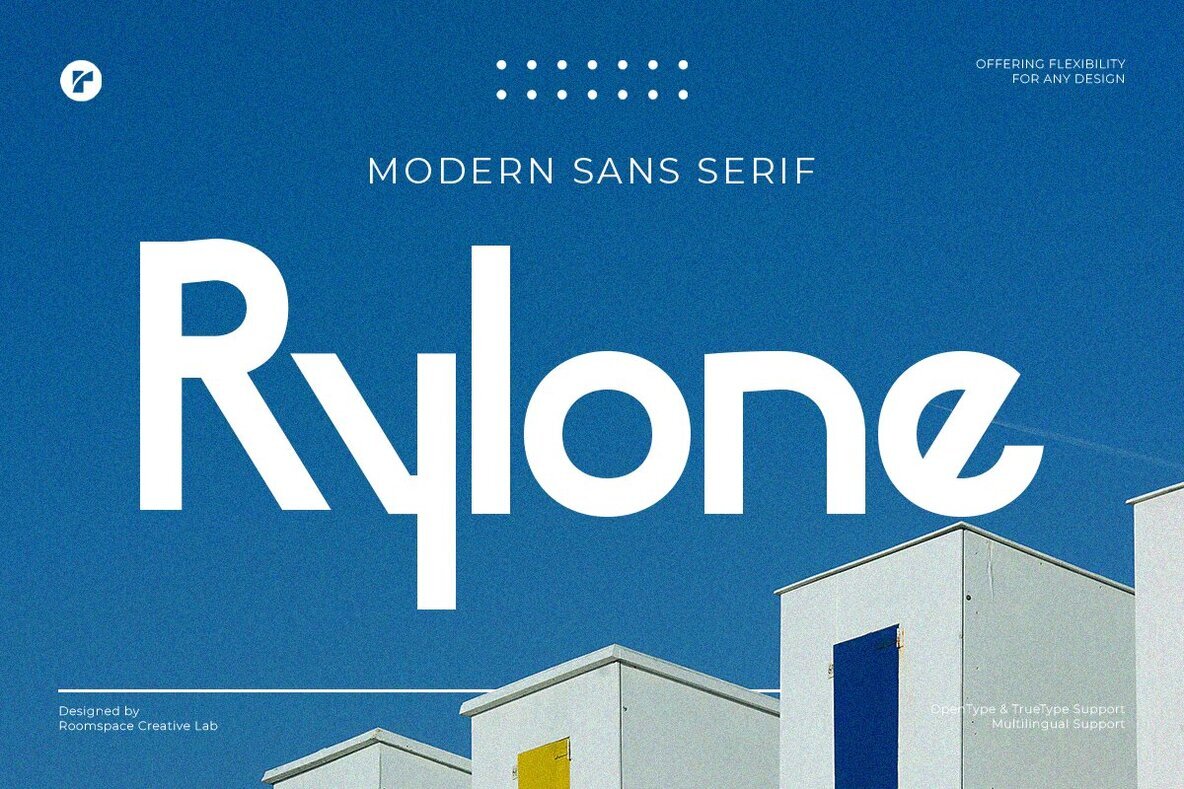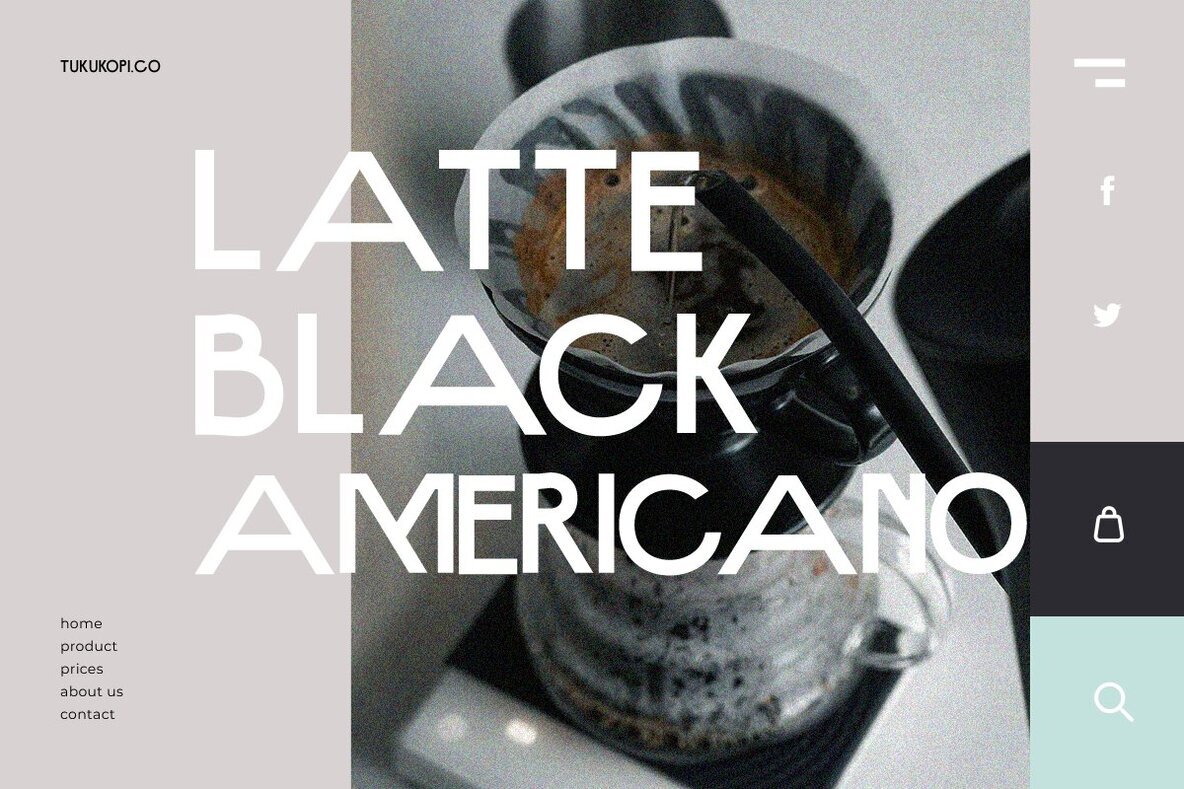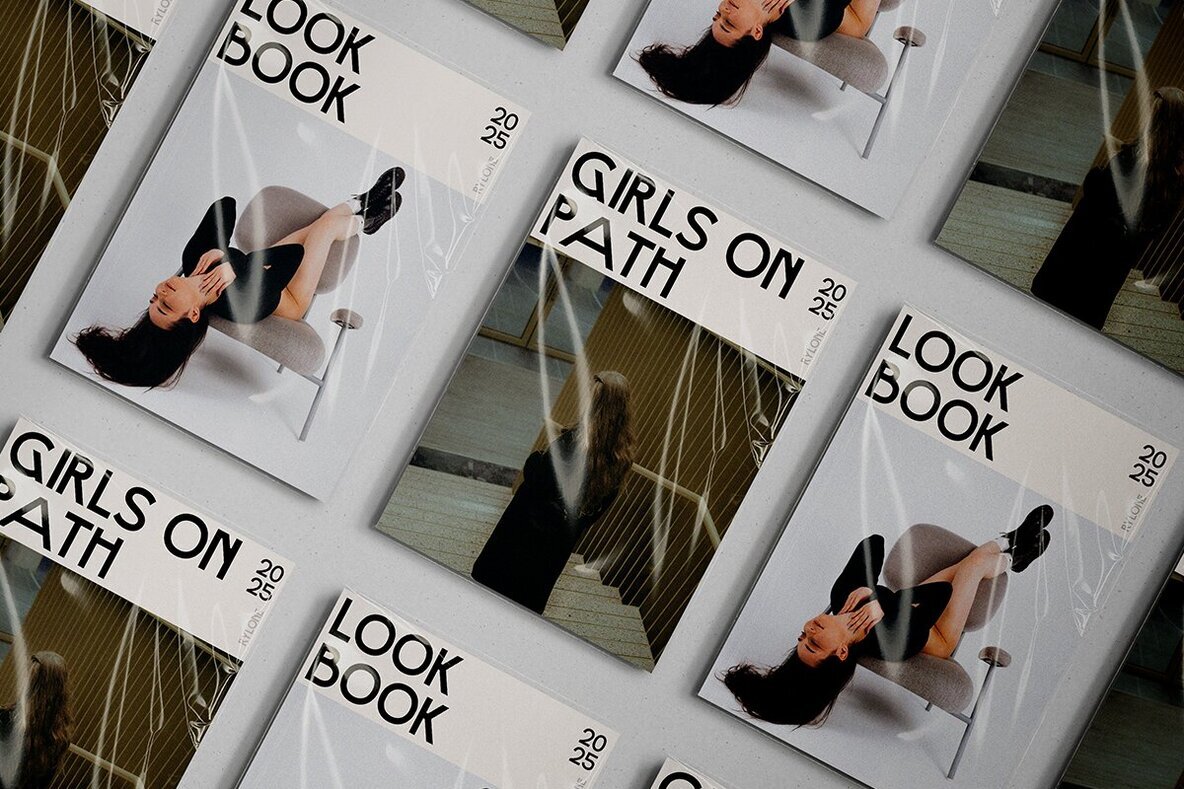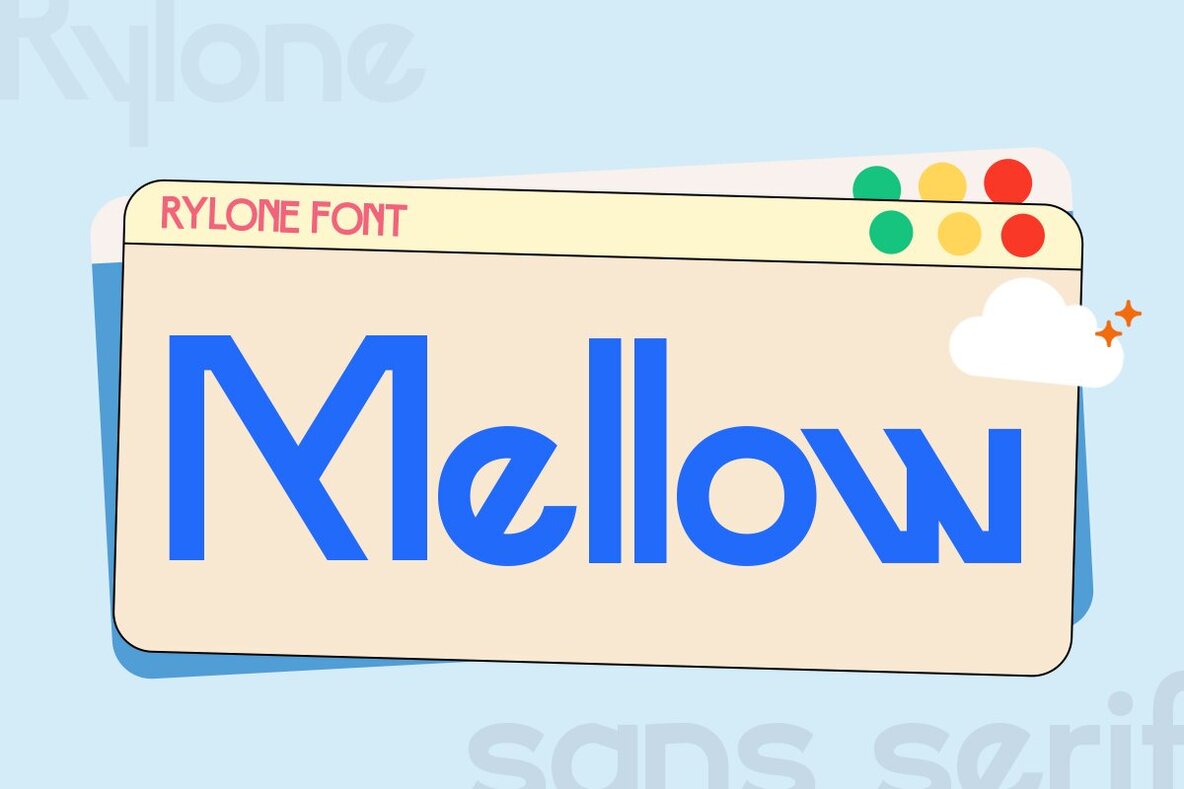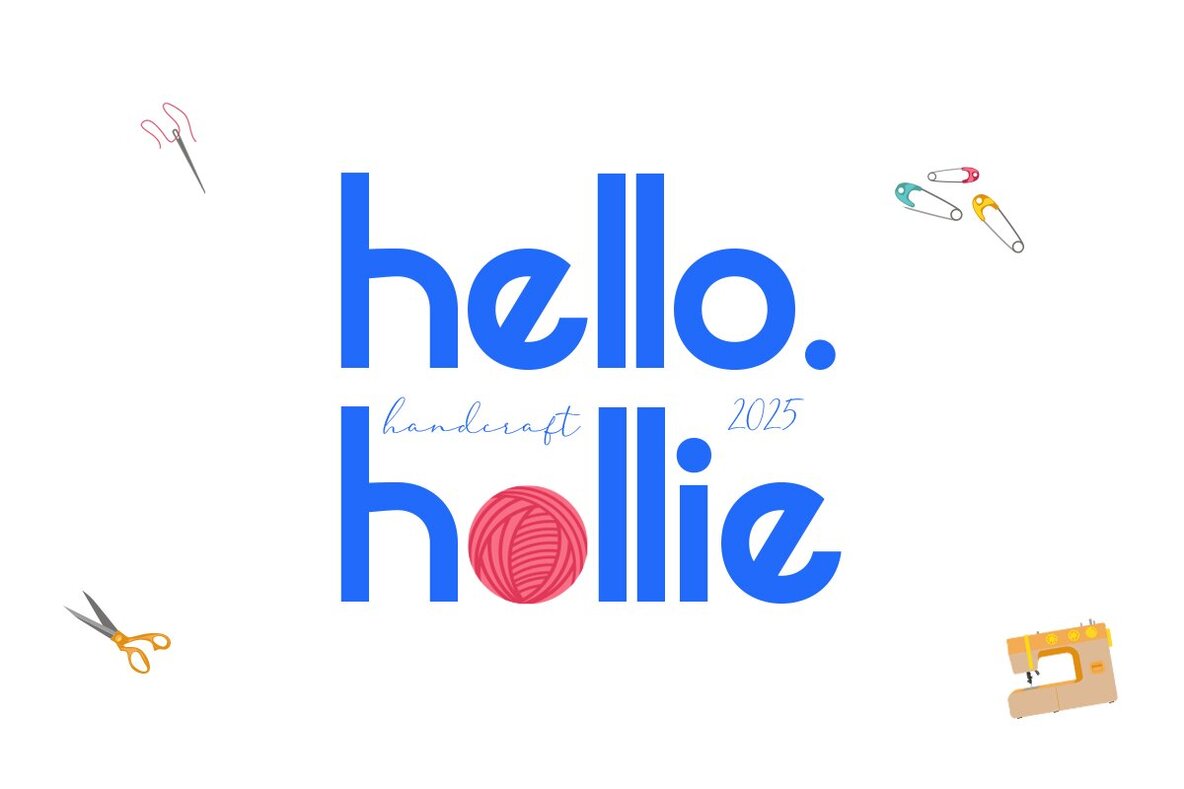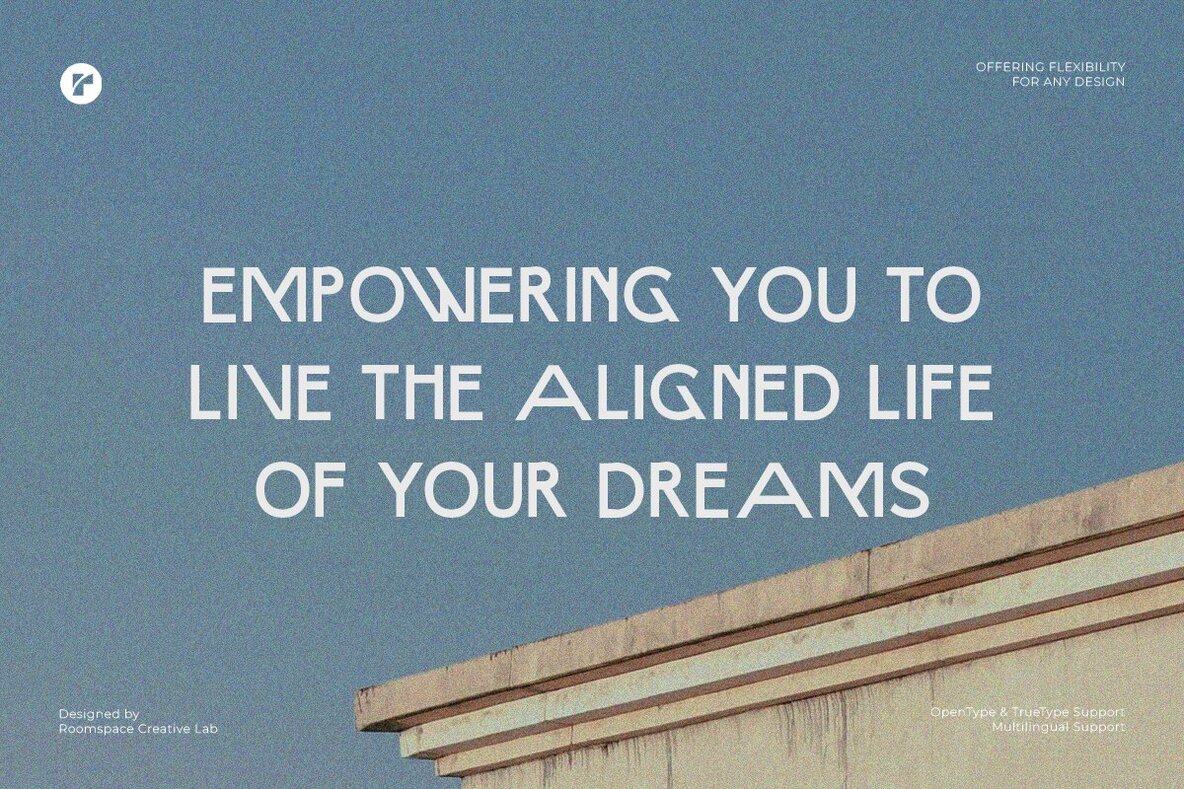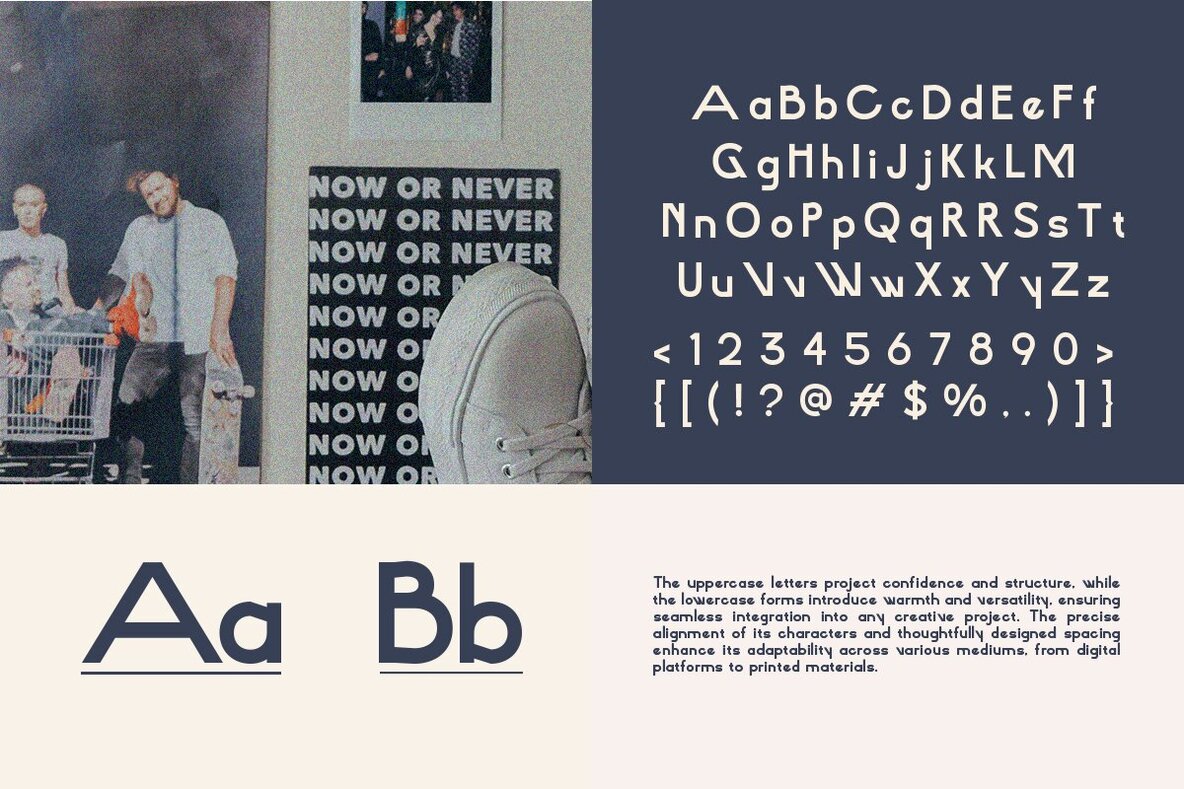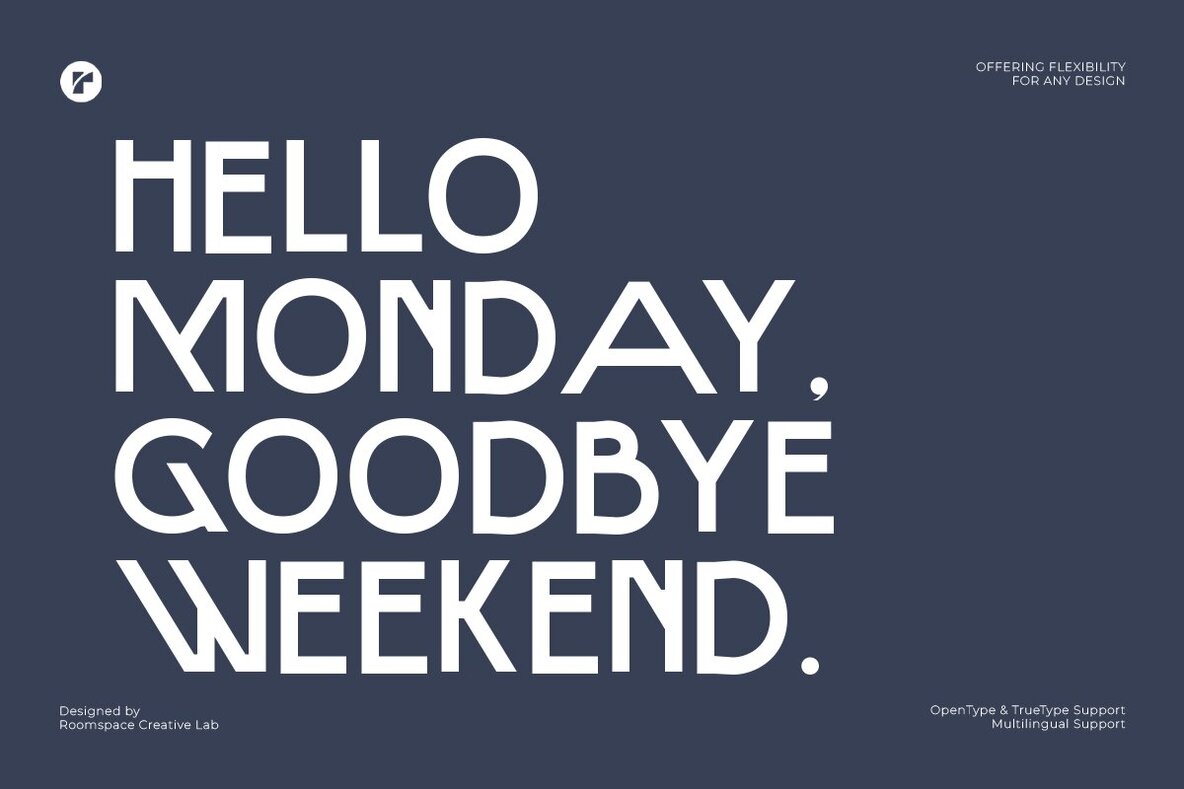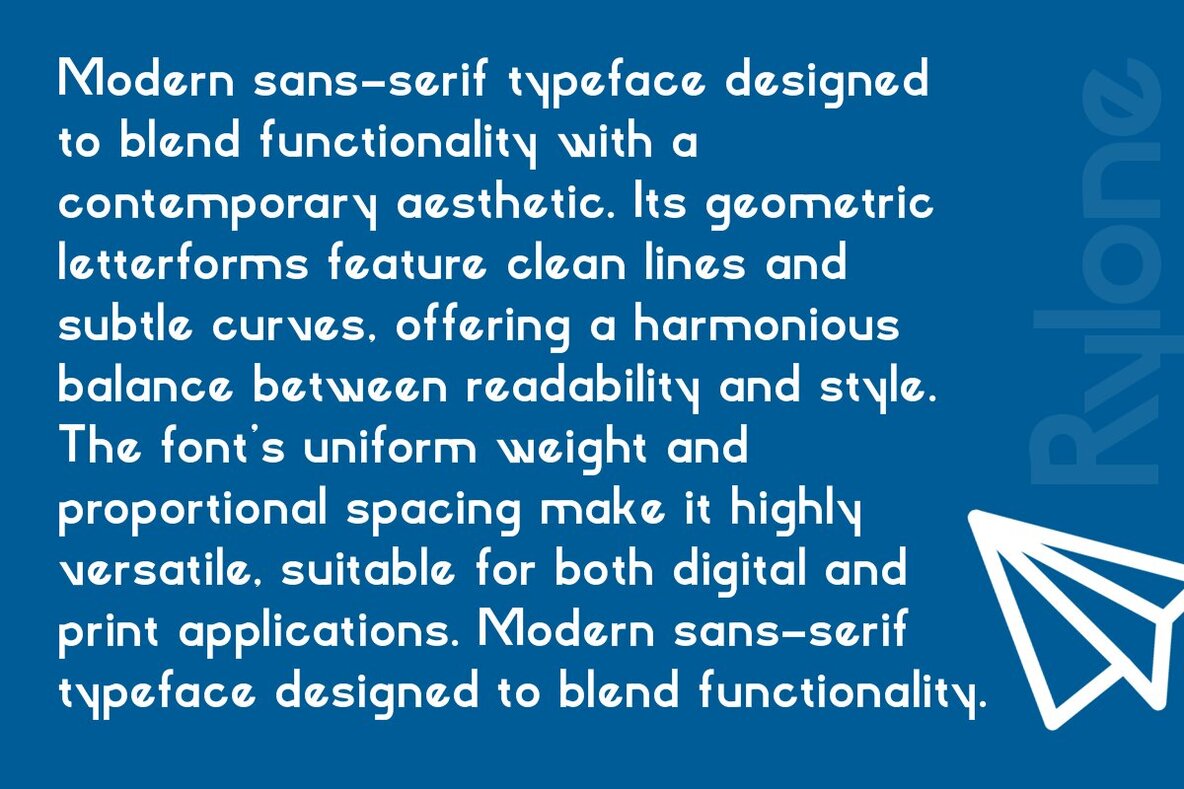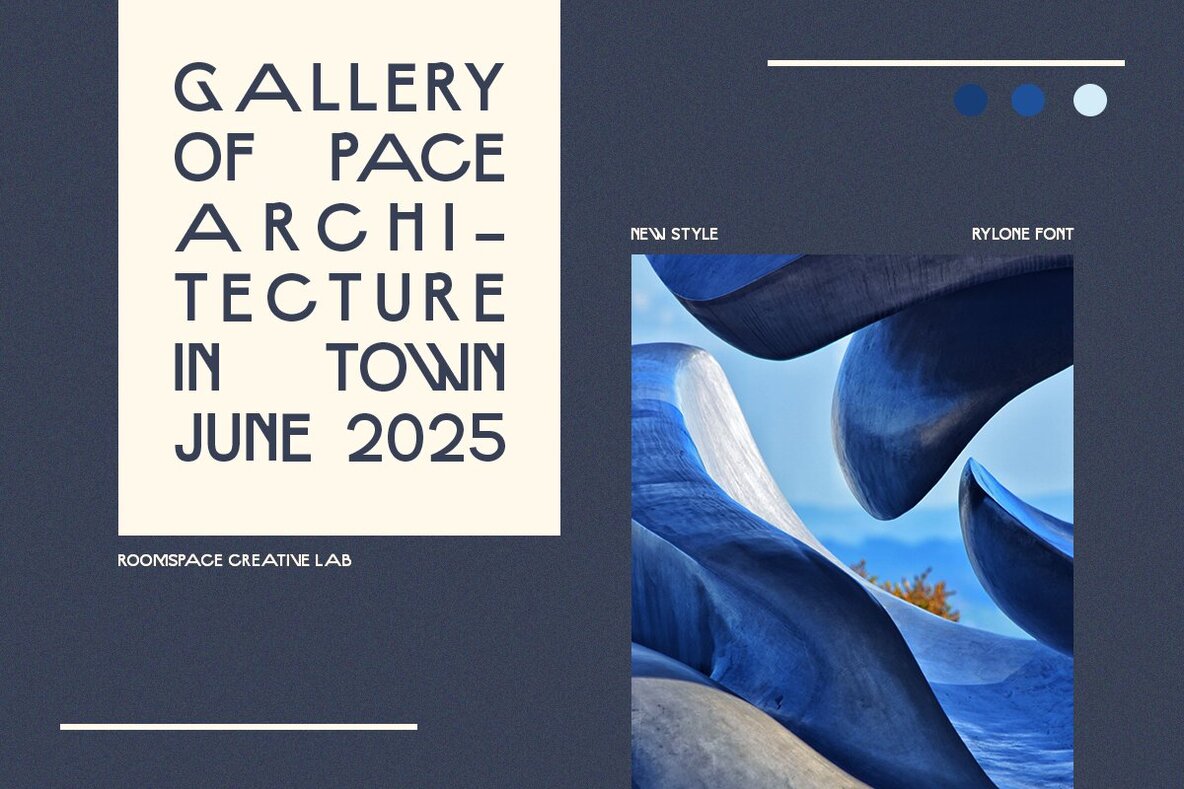
Rylone Font
Rylone Regular
Rylone is a modern sans serif font that seamlessly blends flexibility and style, making it a perfect fit for a wide range of design projects. Its clean and minimal aesthetic adds a distinctive touch while maintaining exceptional readability. Rylone is ideal for branding, logo design, posters, and editorial layouts, owing to its modern style and unique flair. The font's high readability and versatility ensure that it meets the needs of both professional and creative projects. Offering multilingual support, Rylone is compatible with global projects and various design tools, thanks to its OpenType and TrueType formats. Whether you're crafting branding elements or exploring typography, Rylone offers a harmonious blend of elegance, professionalism, and functionality.Rylone: Versatile Modern Sans Serif Font